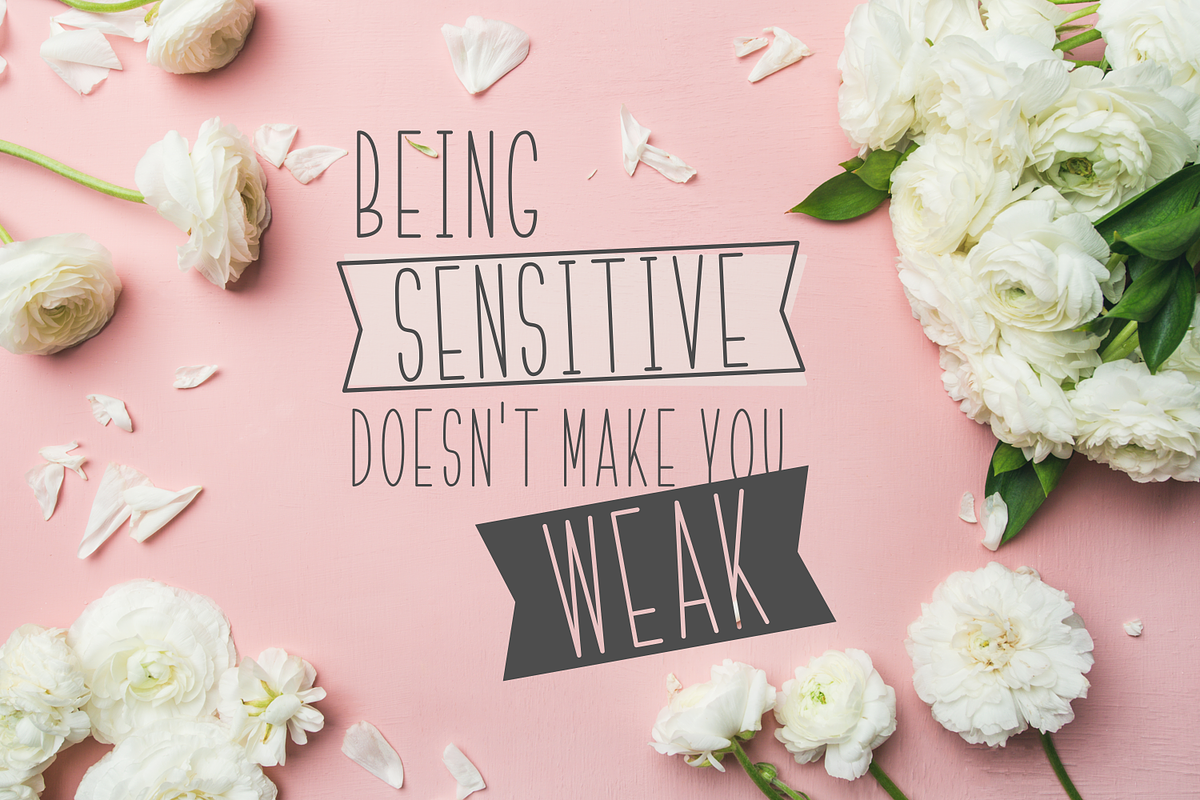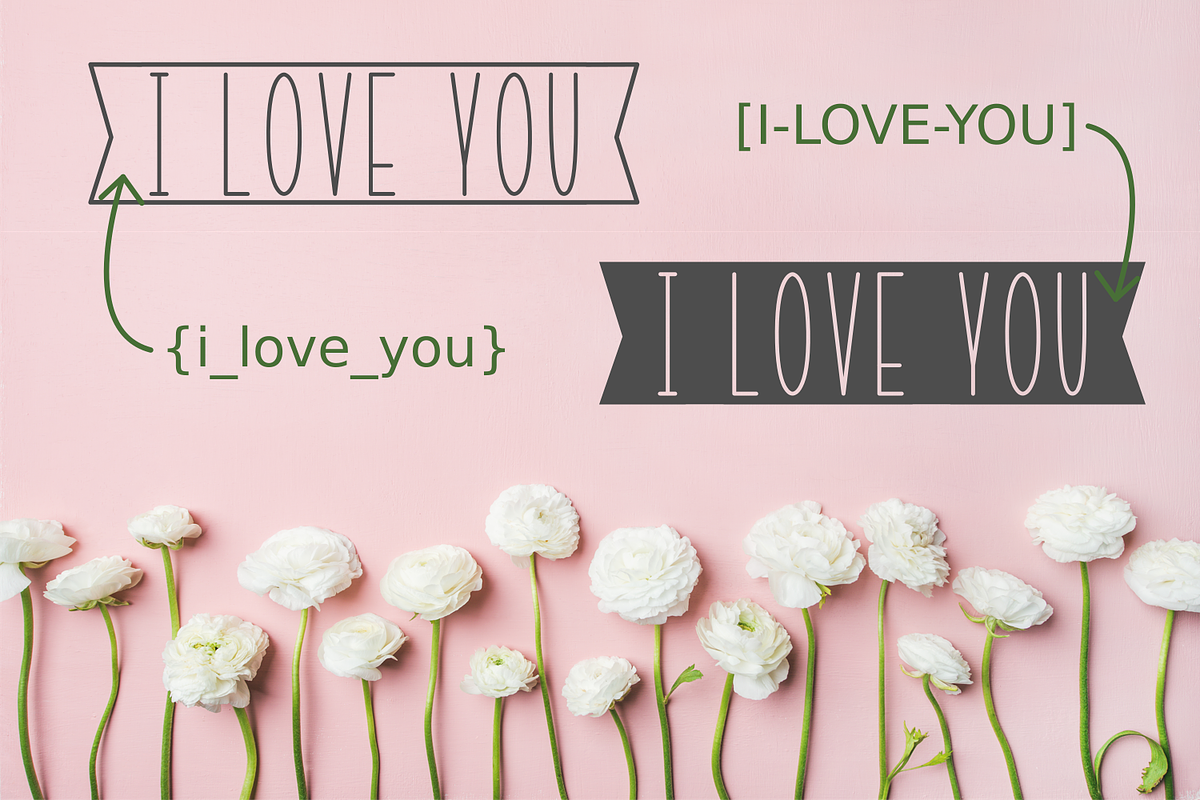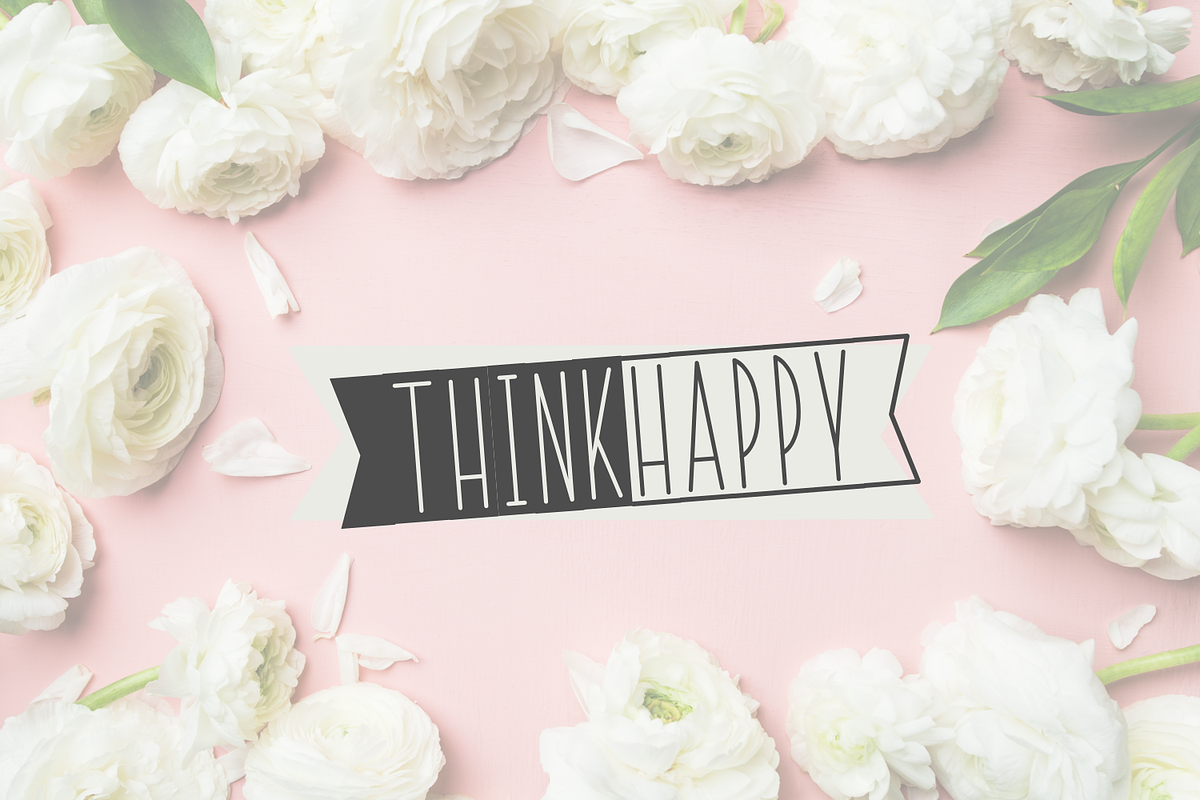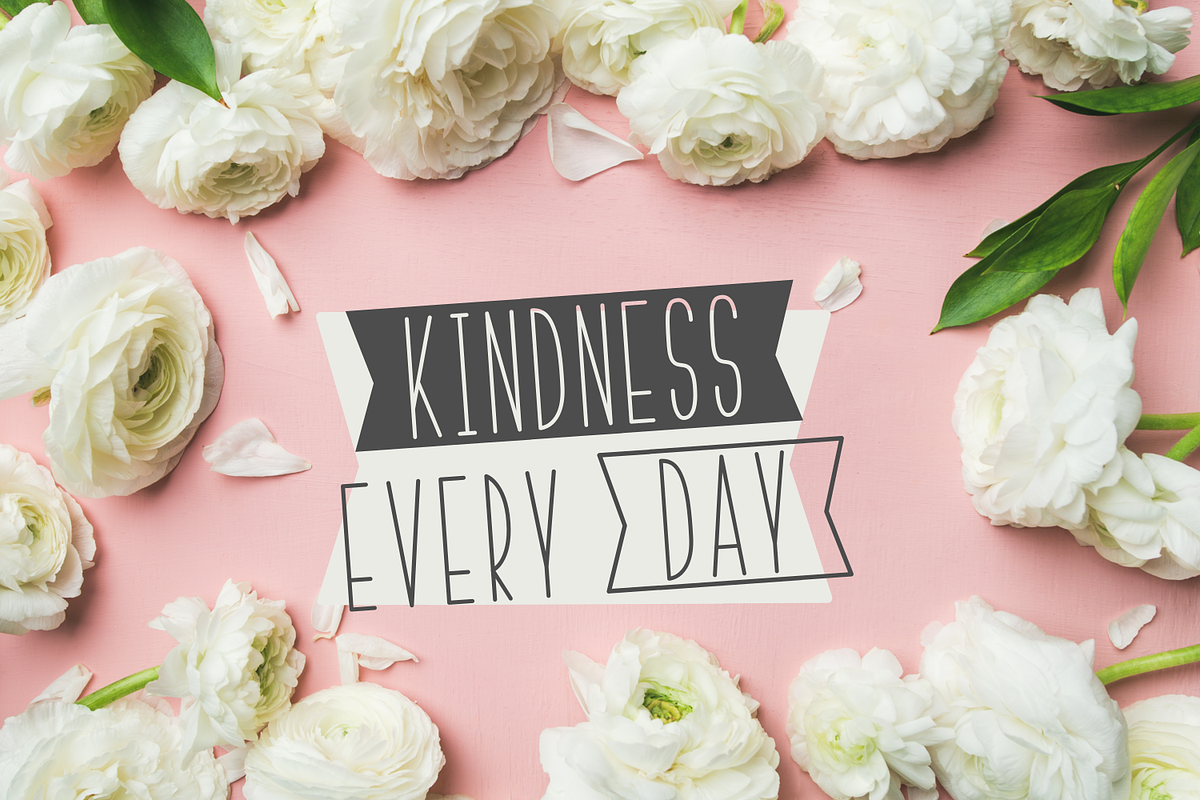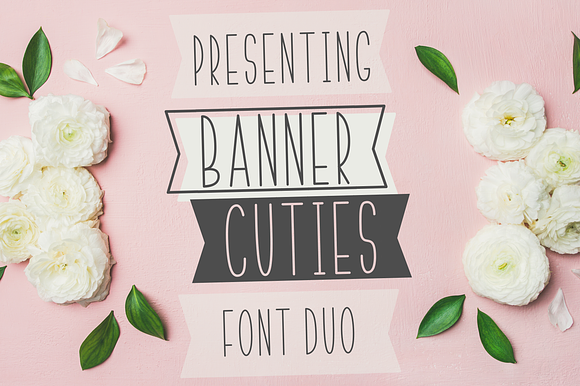
BANNER CUTIES - Font Duo
Why BANNER CUTIES - Font Duo is worth a look
BANNER CUTIES - Font Duo by CraftyLittleNodes fits naturally into Branding, posters, packaging, typography.